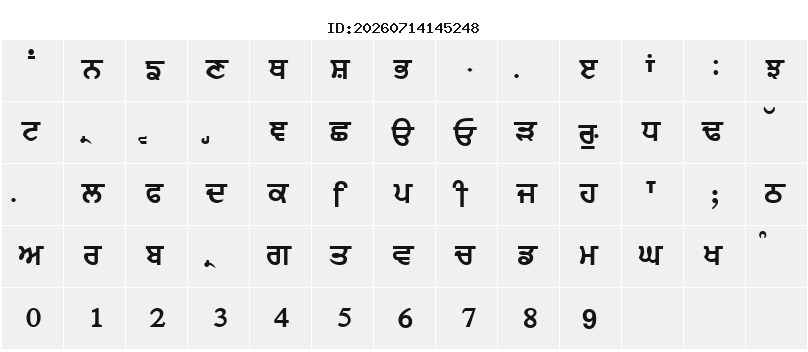
Janmeja2000W Preview
• Font Name: Janmeja2000W
• Font ID: Macromedia Fontographer 4.1 Janmeja2000W Normal
• Full Font Name: Janmeja2000W Normal
• Version: Macromedia Fontographer 4.1 2/12/99
• PostScript Name: Janmeja2000WNormal
• Character Count: 180
About Janmeja2000W.ttf
Janmeja2000W.ttf is a modern, elegant sans-serif font designed for ultimate readability and visual harmony. Perfect for branding, headlines, web design, and print materials.